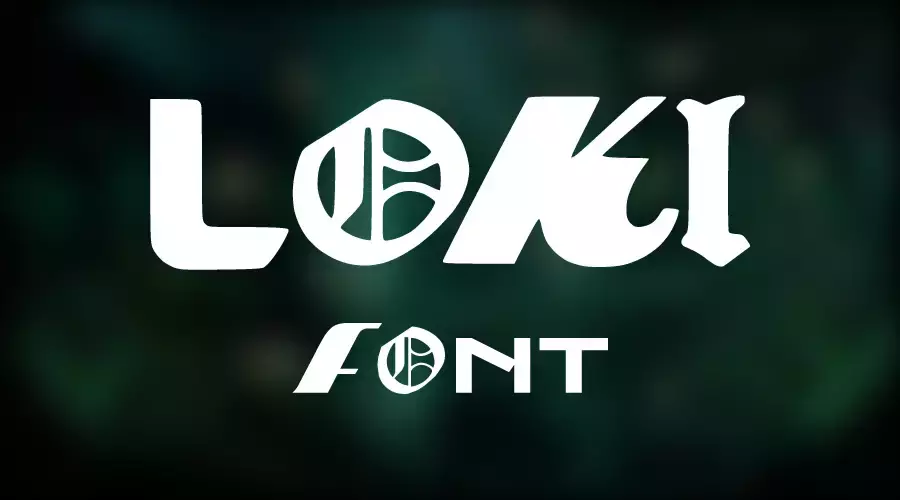
Quick answer: The Loki logo is one word set in four different fonts, one per letter. FontBolt names them: US Angel for the L, Old English Five for the O, ARB 85 Poster Script for the K, and a font like Cloister Black for the I. We host the three we could find, each with its licence. Old English Five is not on dafont, so we only name it. For a free look at the whole word, Cinzel is the closest single font we use.
The four letters, one font each
The figure below boxes each letter of the Commons logo and labels it with FontBolt’s identification. Beside it, the same letters are set in the fonts we host. The identifications come from FontBolt, not from Marvel, so treat them as a claim to check.
The I is the one FontBolt compares to a lowercase l in Cloister Black. dafont lists Cloister Black as 100% Free by Dieter Steffmann, and our hosted file is the one from that page. FontBolt credits Typographer Mediengestaltung instead. We have not settled that, so we give dafont’s credit and leave FontBolt’s claim as it is.
The O: Old English Five
FontBolt names Old English Five by Typographer Mediengestaltung for the O. We could not find it on dafont under that name, so we don’t host it. If you find a copy with a licence that allows sharing, check it before you use it.
A free look for the whole word: Cinzel
If you want one font for the whole word, Cinzel is our pick. It is a classical capitals face under the OFL, so it is free for commercial use. It is a look-alike, not the logo’s font. Fontinlogo uses the same idea, that Cinzel comes close to the logo’s engraved, regal feel.
Make a gold Loki title
The generator sets Cinzel Bold in gold on a dark green ground with a thin green outline. The colours are our own styling, not the series’ colours. Change nothing, or type another word, and save the image.
Made with the free Cinzel Bold font (open license), styled to look like Loki. Fan-made style; not an official logo.
Which font goes with which part
| Letter | FontBolt says | We host (licence) |
|---|---|---|
| L | US Angel | US Angel (personal) |
| O | Old English Five | Not on dafont |
| K | ARB 85 Poster Script | ARB 85 (personal) |
| I | Like Cloister Black’s l | Cloister Black (commercial) |
| Whole word | Our pick | Cinzel Bold (OFL) |
Not the one you mean?
Several sites use the name “Loki” for unrelated fonts. “Loki Typeface” on dafontfree.io is a serif script, “Loki Cola” is on dafont, and “Loki Serif Script” is on unblast. None of them is the Loki logo’s font, so we don’t host them.
Questions about the Loki font
What font is the Loki logo?
FontBolt says it uses four fonts, one per letter. The L is US Angel, the O is Old English Five, the K is ARB 85 Poster Script, and the I is like Cloister Black’s l. We have not confirmed this against Marvel, and one of the four is not on dafont.
Can I use these fonts for a commercial project?
Is the generator the real Loki font?
No. It is a Cinzel-based look-alike with our own gold and green colours. Use it for fan work, not as the logo.